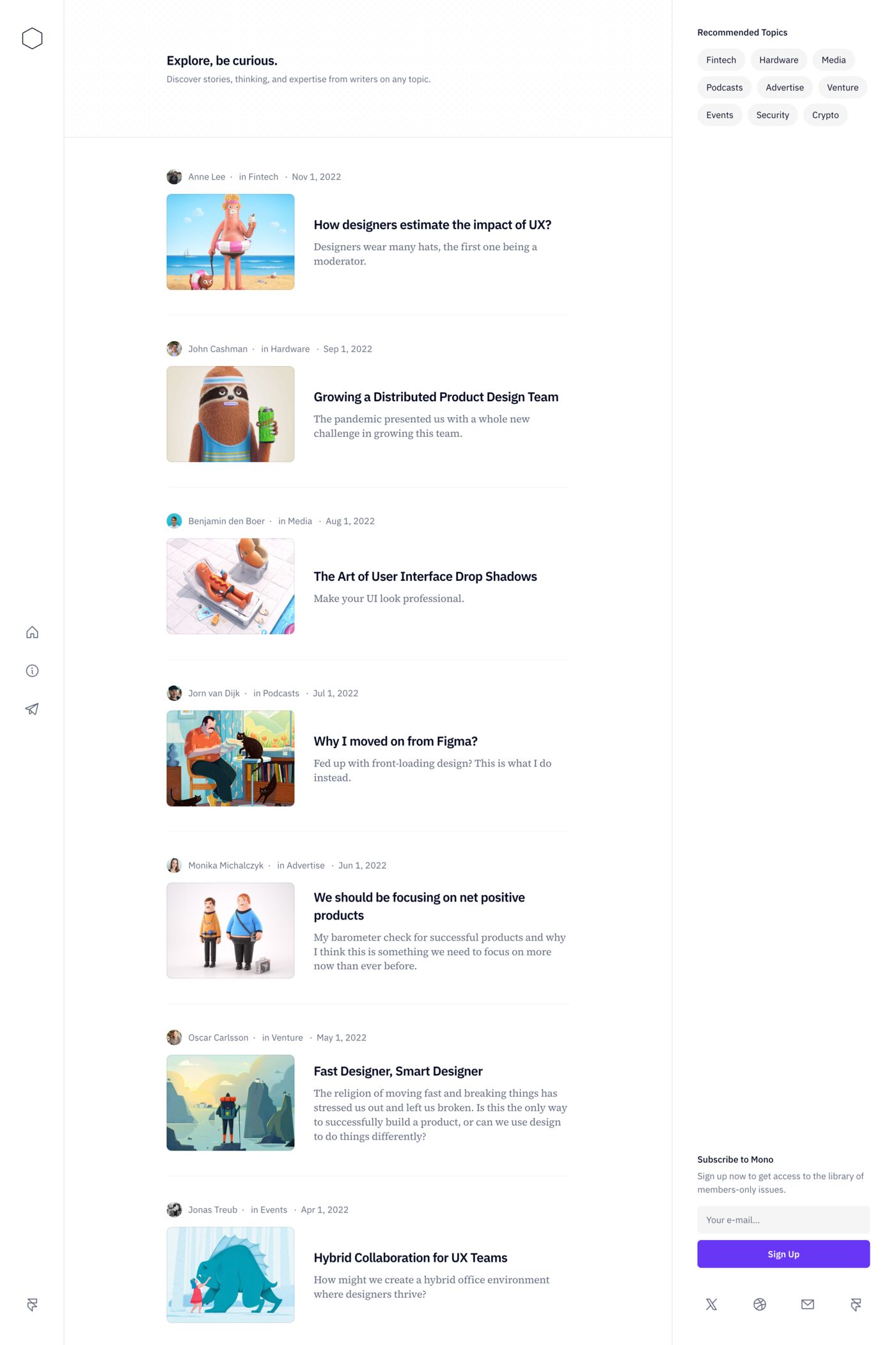
Source Serif is a serif typeface from Adobe.
Source Serif 4 is a serif typeface in the transitional style, designed to complement the Source Sans Pro family. The close companionship of Serif and Sans is achieved by a careful match of letter proportions and typographic color. Source Serif is loosely based on the work of Pierre Simon Fournier, and many idiosyncrasies typical to Fournier’s designs (like the bottom serif on the b or the middle serif on the w) are also found in Source Serif. Without being a pure historical revival, Source Serif takes cues from Fournier and reworks them for a modern age.